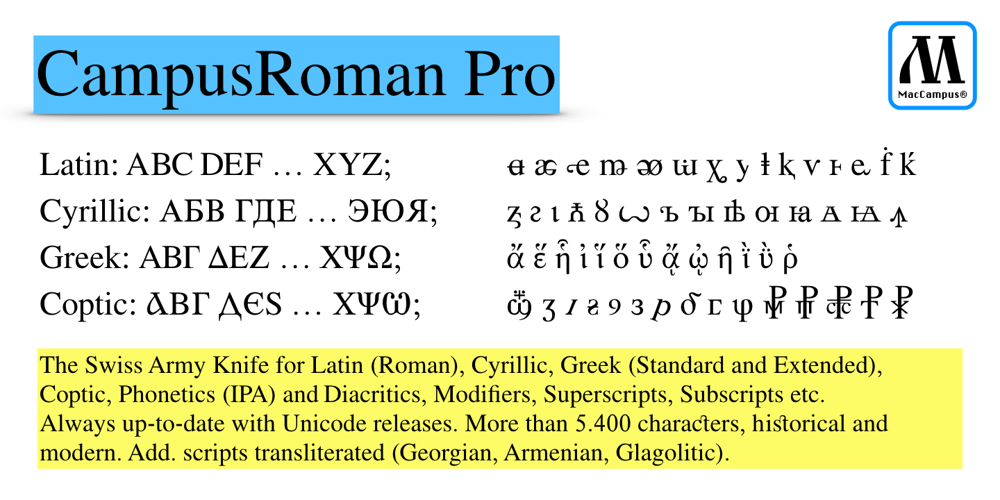
CampusRoman Pro Font Family was designed by Sebastian Kempgen and published by MacCampus. CampusRoman Pro contains 1 styles and family package options. The Swiss Army Knife for Latin (Roman), Cyrillic, Greek (Standard and Extended), Coptic, Phonetics (IPA) and Diacritics, Modifiers, Superscripts, Subscripts etc. Always up-to-date with Unicode releases. More than 5.400 characters, historical and modern. Add. scripts transliterated (Georgian, Armenian, Glagolitic).